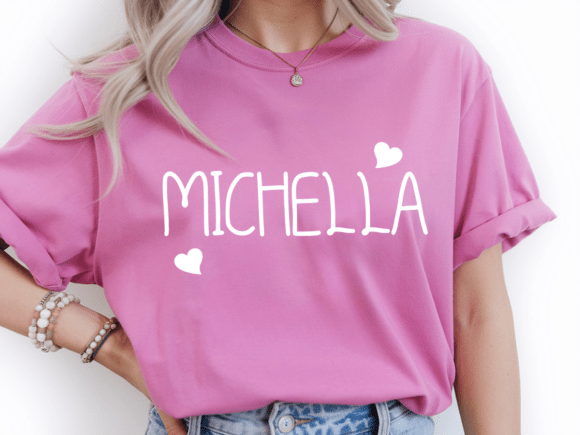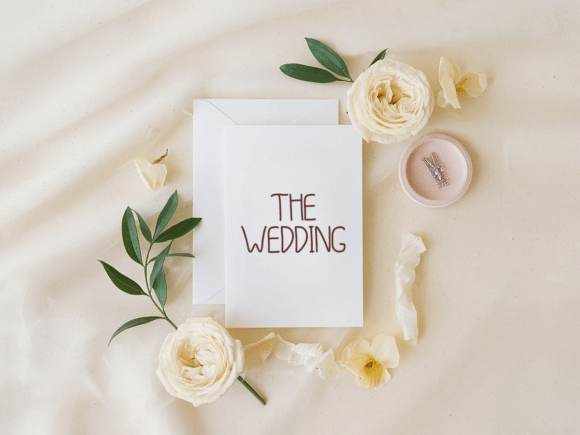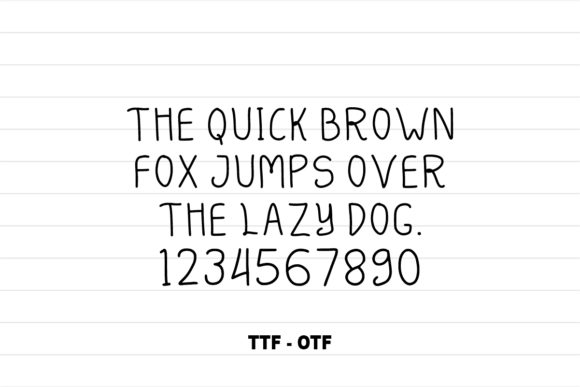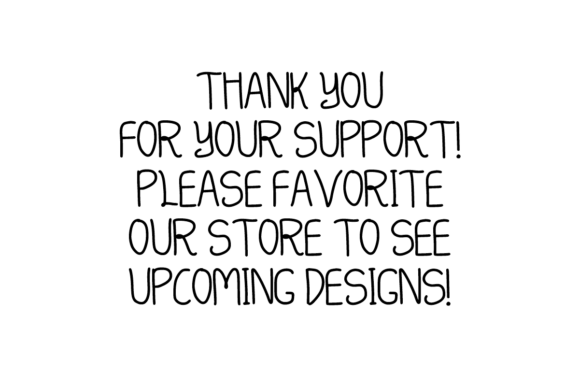
Introduction to Smooth Strokes Font Font
Fonts play a crucial role in design, and the Smooth Strokes Font font is a typeface that brings both character and versatility to any project. Whether you’re working on a branding project, a website, or a print design, the Smooth Strokes Font font offers a unique style that can elevate your work.
Smooth Strokes – Clean & Elegant Handwritten Display Font ✨✍️ Elevate your designs with the effortless grace of Smooth Strokes.
🌿 This handwritten display font features slim, flowing lines and a clean aesthetic that brings a touch of organic elegance to any project Its minimalist and friendly style makes it incredibly versatile and easy to read.
Key Features of Smooth Strokes Font Font
Why Choose Smooth Strokes Font Font?
The Smooth Strokes Font font is more than just a typeface – it’s a design tool that helps you communicate your message with style and clarity. Its unique character set and versatile design make it suitable for a wide range of applications, from elegant invitations to bold headlines.
With its carefully crafted letterforms and balanced proportions, the Smooth Strokes Font font ensures readability and visual appeal across all mediums.
What makes Smooth Strokes Font font special?
The Smooth Strokes Font font stands out with its unique design, exceptional readability, and versatility across various design applications.